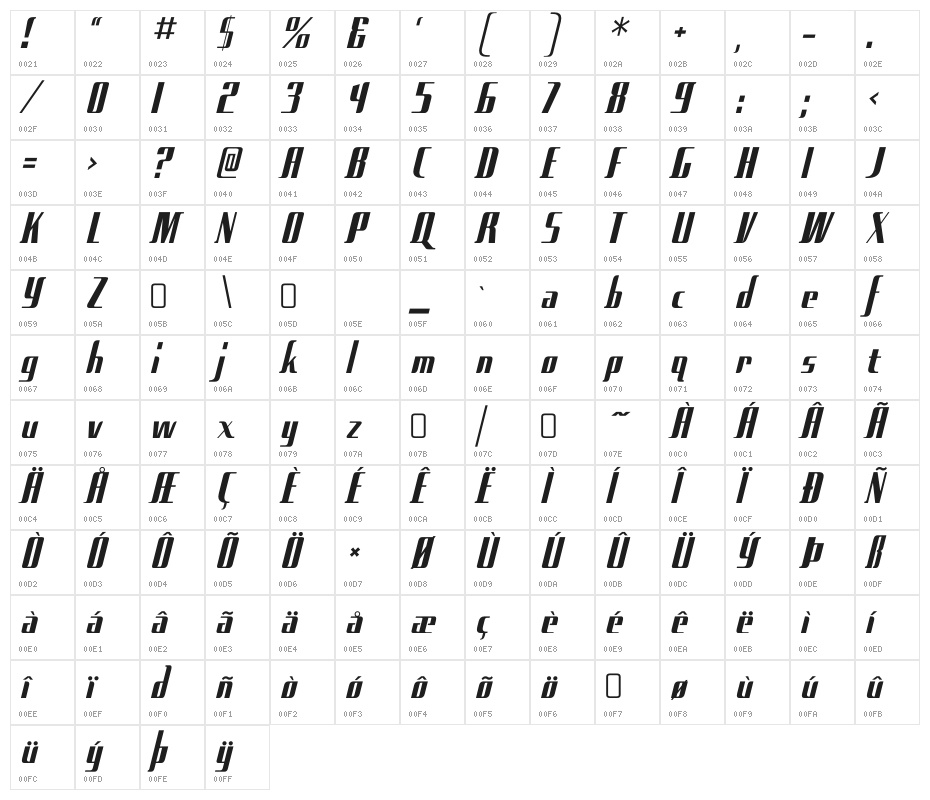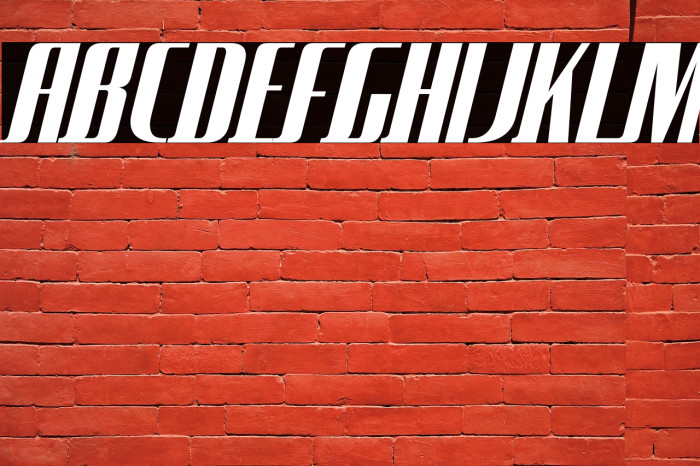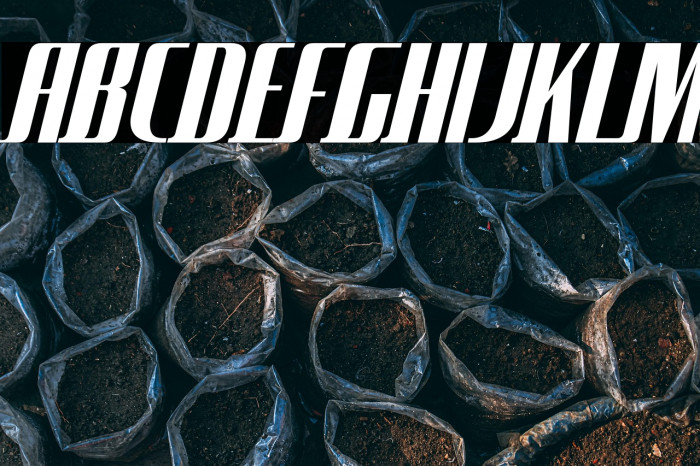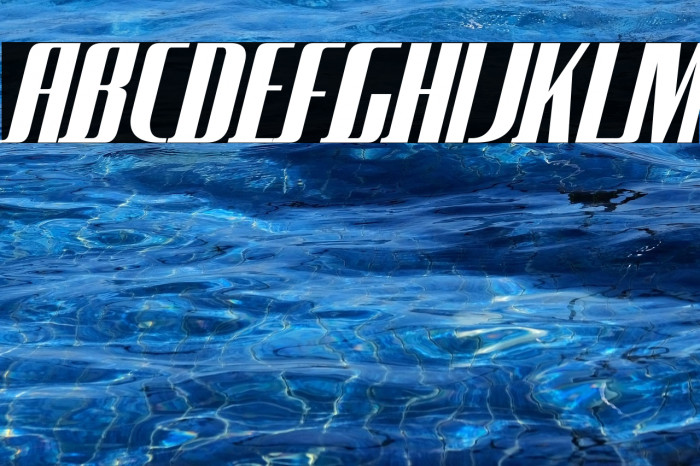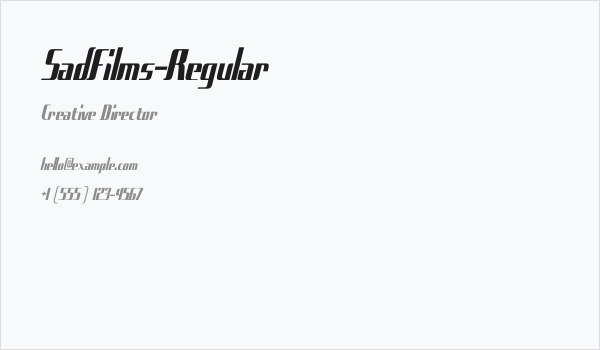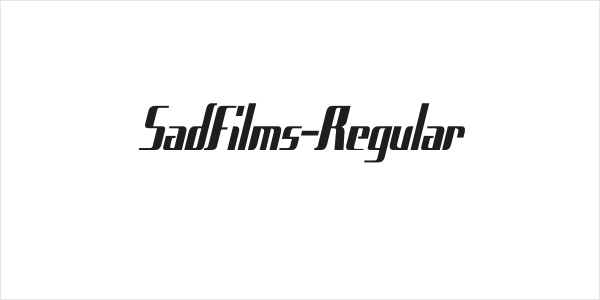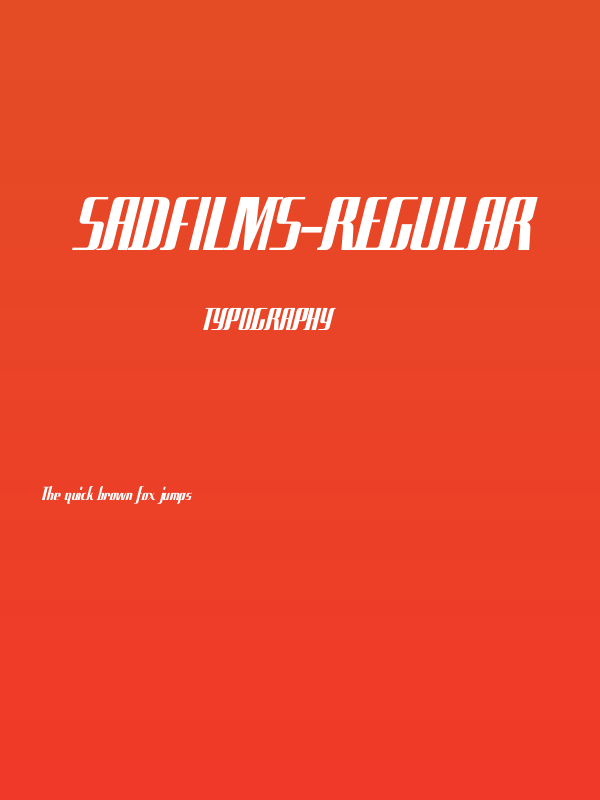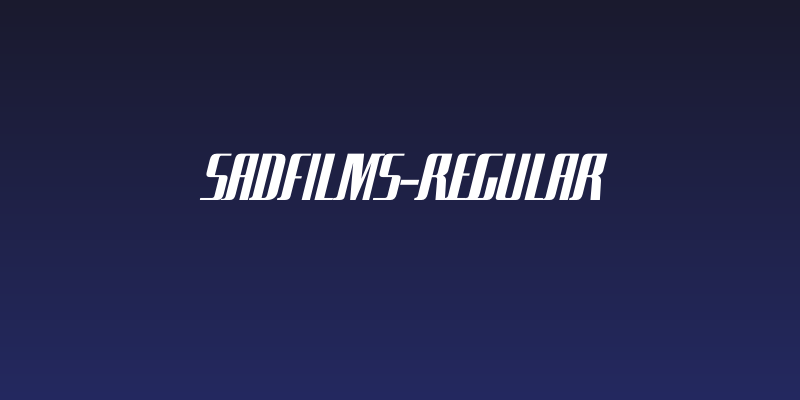
SadFilms-Regular Font
SadFilms-Regular Description
This font features a dynamic and modern design with a strong italic slant, giving it a sense of motion and energy. The characters are bold and condensed, with sharp angles and clean lines that create a sleek and futuristic appearance. The uppercase letters are tall and commanding, while the lowercase letters maintain a consistent style, enhancing readability. The numerals are distinct and align well with the overall aesthetic, making them suitable for impactful displays. Special characters are included, maintaining the font's cohesive design. This font is ideal for projects that require a bold and modern look, such as branding, advertising, and digital media.
| Width | Condensed |
| Use Case | Headlines, Logos, Advertising |
| Proposed Projects | Ideal for branding, advertising, digital media, and any project needing a bold, modern look. |